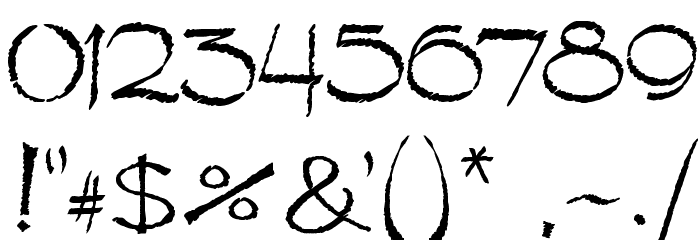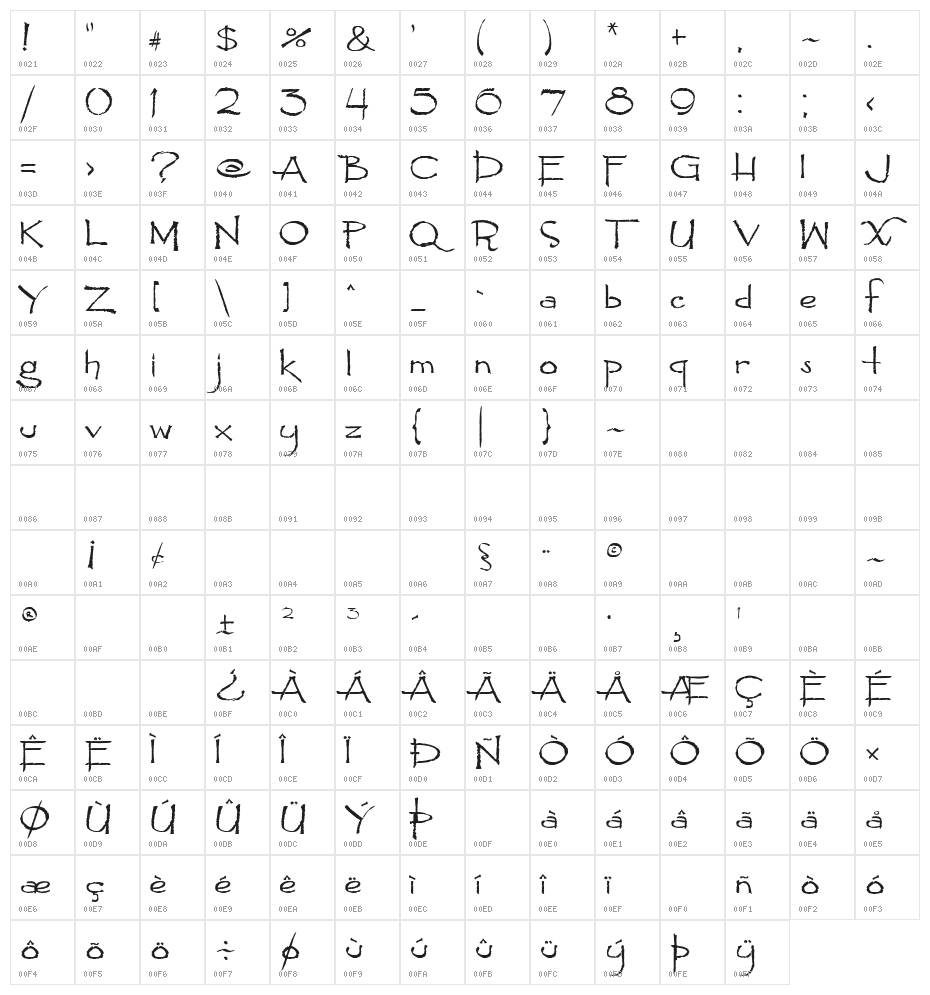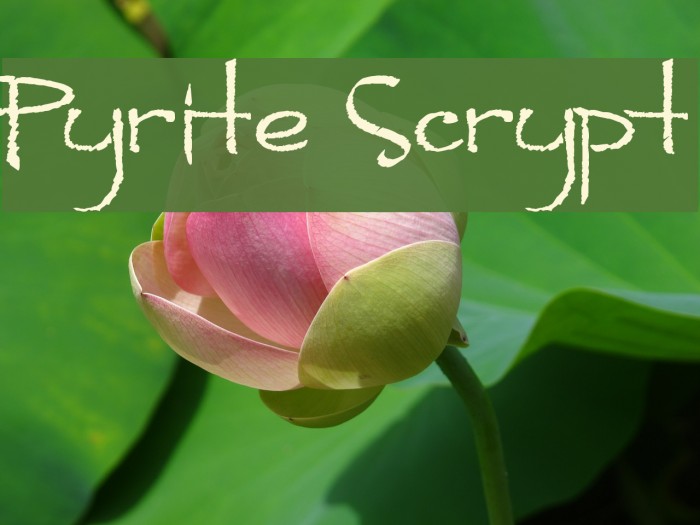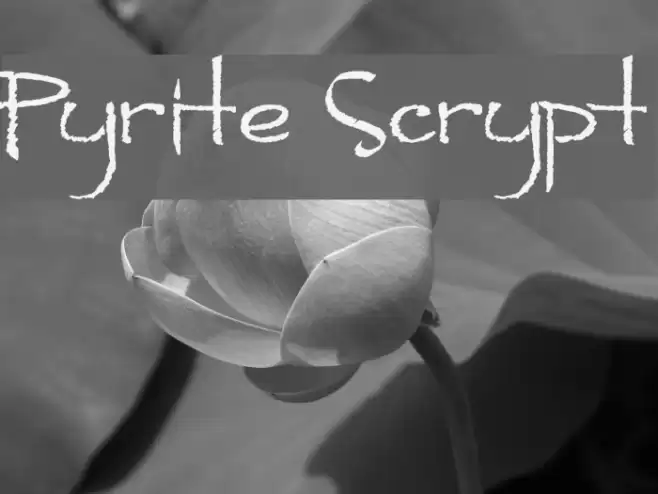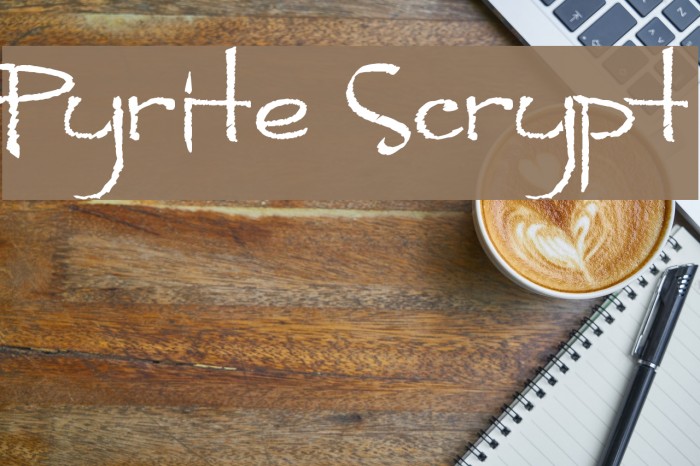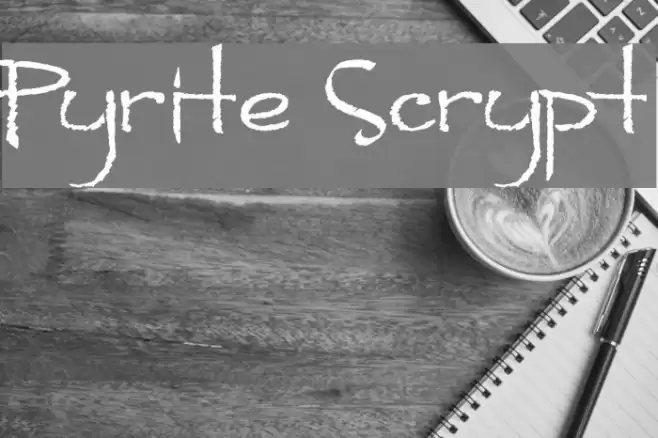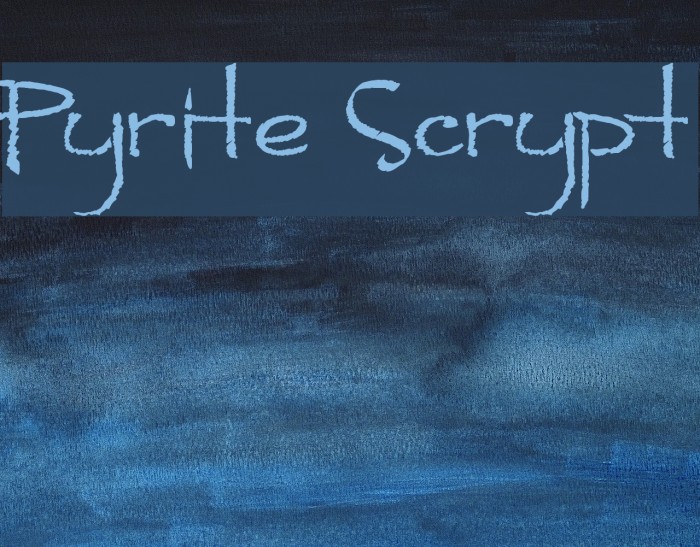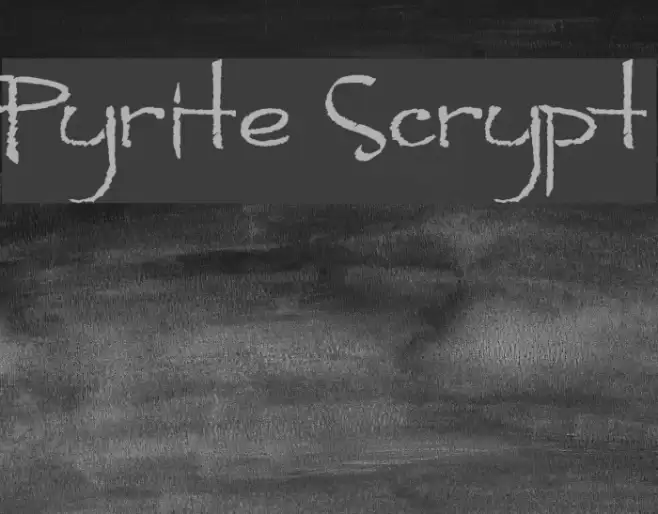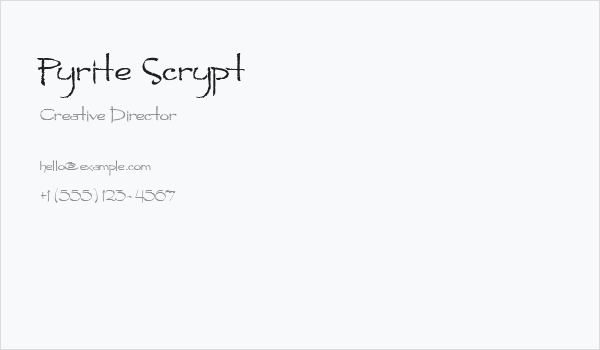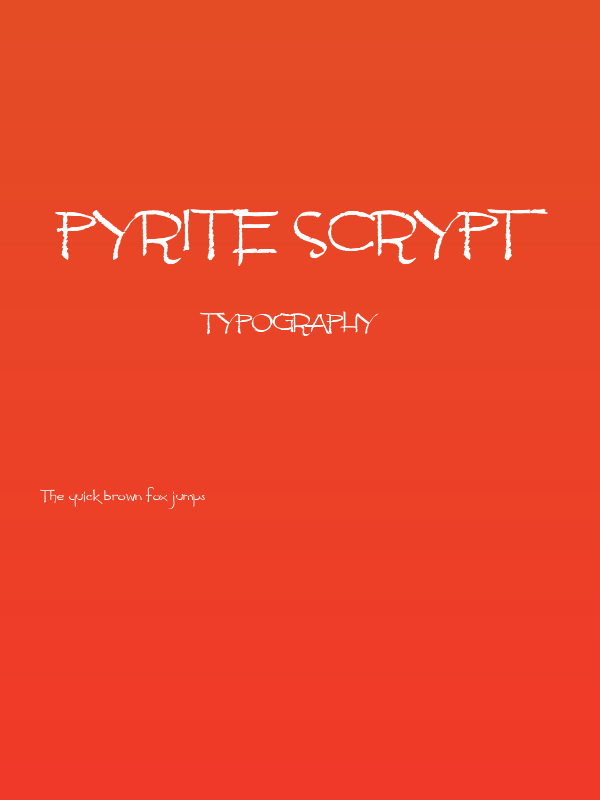
Pyrite Scrypt Font
Pyrite Scrypt Description
This font features a distinctive, hand-drawn style with a rough, textured appearance. The uppercase letters are bold and slightly irregular, giving them a dynamic and energetic feel. The lowercase letters maintain this hand-crafted look, with unique variations in stroke width and character shapes. Numbers and special characters follow the same design principles, ensuring consistency across all glyphs. The overall aesthetic is reminiscent of a script written with a brush or marker, making it ideal for projects that require a personal, artistic touch.
| Overall Style | Artistic, Handcrafted |
| Proposed Projects | Ideal for creative projects such as posters, album covers, artistic branding, and any design that benefits from a personal, handcrafted look. |